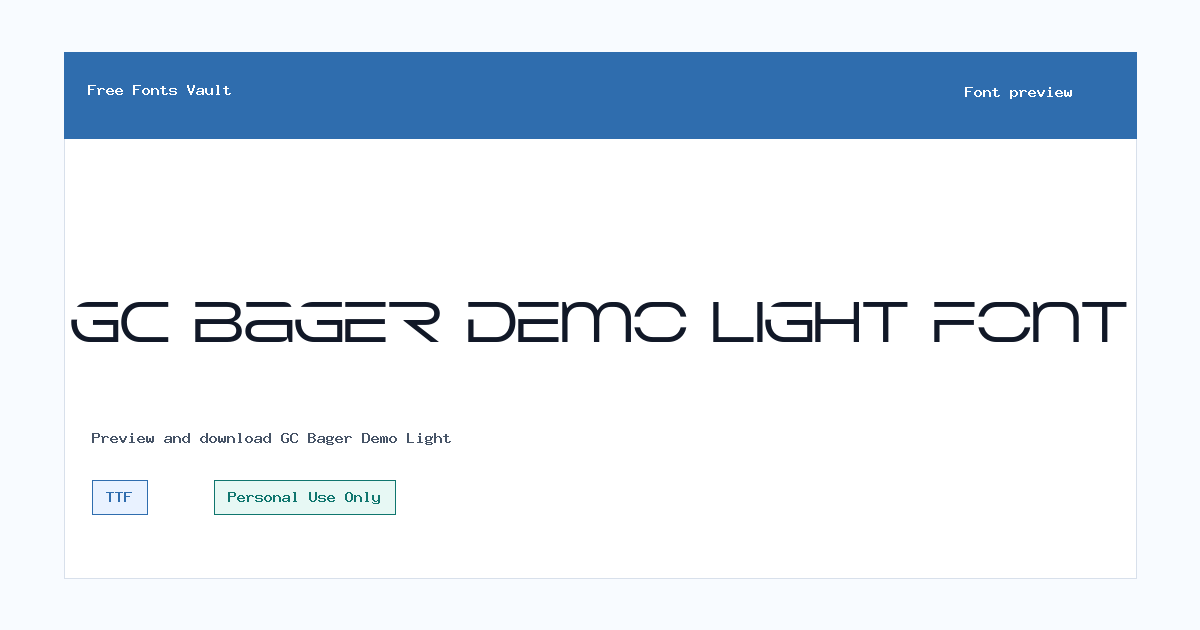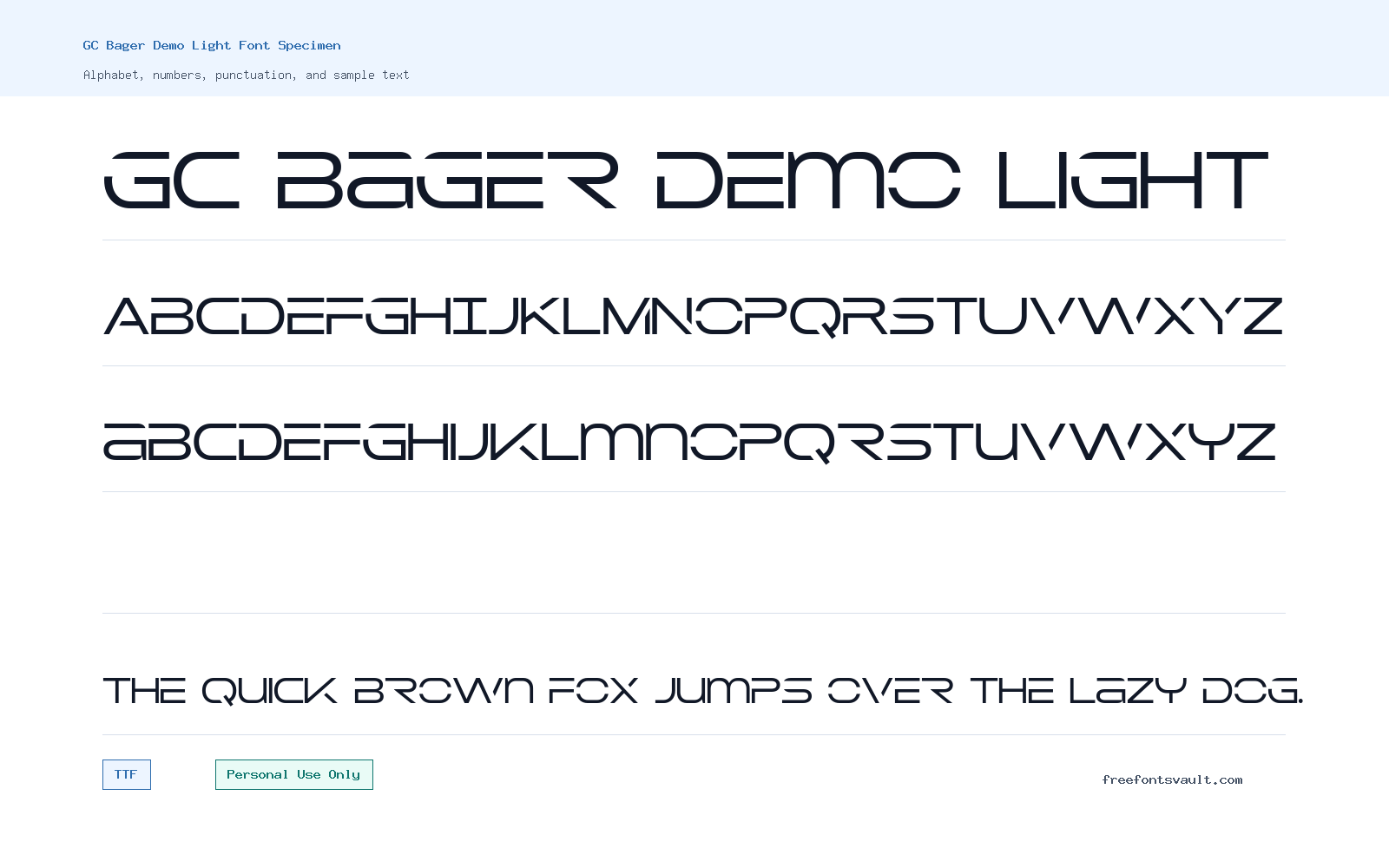
GC Bager Demo Light
- Designer Laila Nuzul Maghfiroh of Glyphonic
GC Bager Demo Light is a light-weight sans serif demo font from Glyphonic, designed by Laila Nuzul Maghfiroh. It is best treated as a personal-use trial font for testing layouts, previewing typography, and building non-commercial design drafts.
About GC Bager Demo Light
GC Bager Demo Light gives you a slim sans serif style in a TTF file, with a normal upright style and a 300 weight. That makes it useful when you want a lighter typographic voice rather than a heavy headline face. In a preview tool, try it with short titles, clean headings, nameplates, poster text, and simple logo concepts to see how the thin strokes hold up at different sizes. Because the font file is the Light demo style, it is likely to work best where spacing, scale, and contrast can support a more delicate look.
For practical design work, start by testing GC Bager Demo Light in larger text before using it in small paragraphs. Light sans serif fonts can look elegant in titles, but they may lose clarity when used too small, placed over busy images, or printed at low contrast. For posters and social graphics, pair it with strong spacing and a simple background. For logo drafts, use it to explore a clean wordmark direction, then check the license before using the result publicly or commercially. In web mockups, it can help you test a refined navigation, hero heading, or minimal landing-page layout, but a production site should only use a properly licensed version.
The font pairing approach should be simple. Since GC Bager Demo Light is already thin and understated, pair it with a more readable text face for body copy. A neutral sans serif can keep the design clean, while a classic serif can add contrast if the layout needs a more editorial feel. Avoid pairing it with another very thin font unless the design is intentionally quiet and spacious. If the main heading uses GC Bager Demo Light, let the supporting font do the heavy lifting for longer descriptions, buttons, captions, and mobile text.
Use the preview area to test real words rather than only alphabet samples. Try your brand name, event title, poster headline, menu label, or product name. Check uppercase and lowercase spacing, punctuation, numerals, and how the font behaves at the exact size you plan to use. If a wordmark feels too fragile, increase tracking carefully or move to a heavier licensed style from the same family if one is offered by the foundry. The safest way to judge this font is by testing it in the actual context where it will appear.
- Light 300-weight sans serif style for clean headings and display testing
- Useful for testing logo concepts, posters, web mockups, and short text layouts
- Best used at readable sizes with enough contrast and spacing
- Personal logo concepts and wordmark experiments
- Poster titles and event headline mockups
- Minimal web hero sections and landing-page previews
- Social media graphics for non-commercial drafts
- Typography testing in clean brand directions
- Short headings, nameplates, labels, and layout studies
GC Bager Demo Light is credited to designer Laila Nuzul Maghfiroh of Glyphonic.
Test the font at the size and contrast you need before committing to a layout. Light fonts often work best in larger display settings, with generous spacing and a clear background. For long reading text, pair it with a sturdier body font so the design stays readable on mobile screens and lower-resolution displays.
What kind of font is GC Bager Demo Light?
It is a light-weight sans serif demo font in a normal upright style.
Is GC Bager Demo Light good for body text?
It may be better for short headings and display text than long paragraphs because it is a light 300-weight style. Test readability carefully before using it in smaller text.
Who designed GC Bager Demo Light?
The font is credited to Laila Nuzul Maghfiroh of Glyphonic.